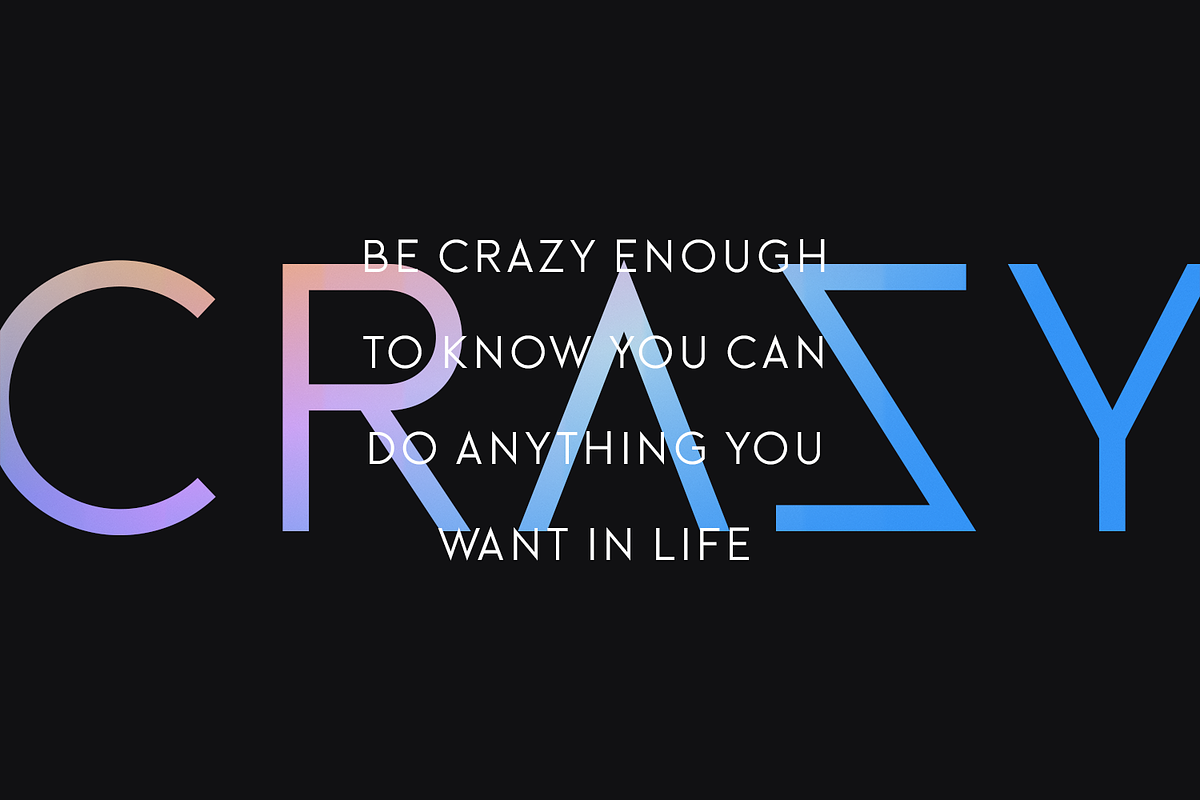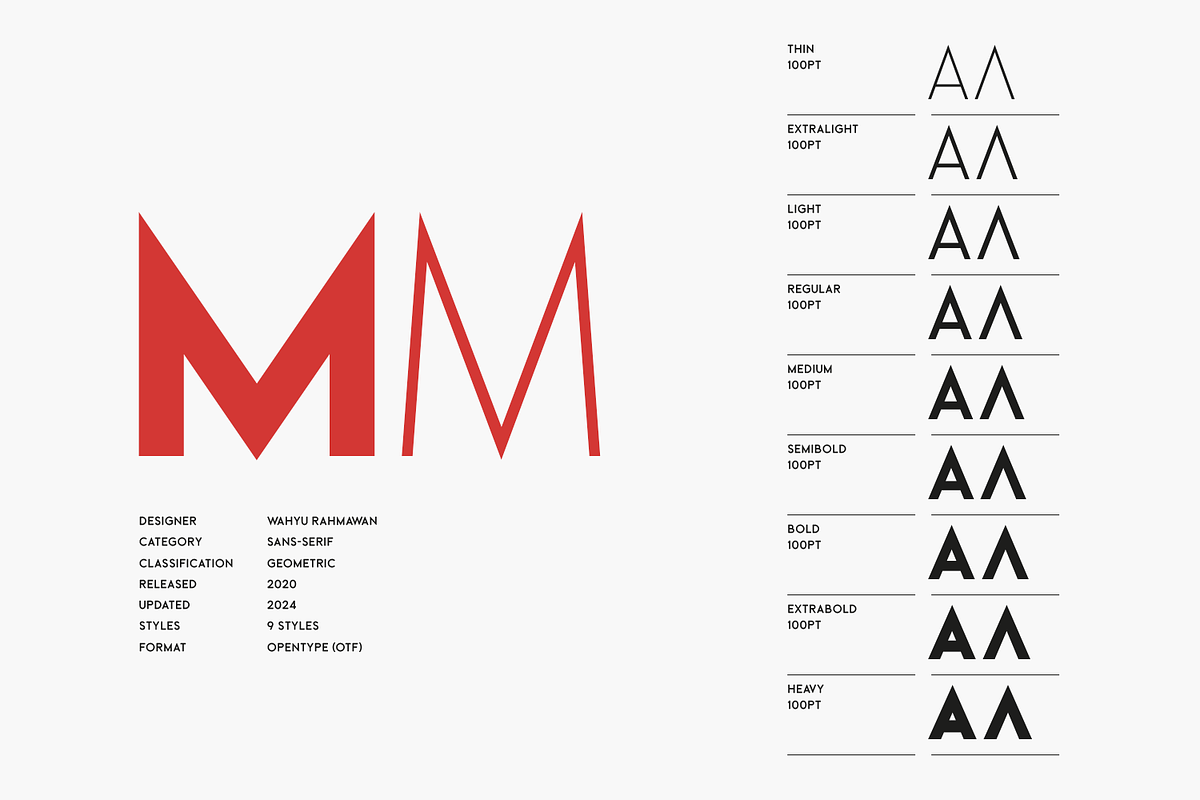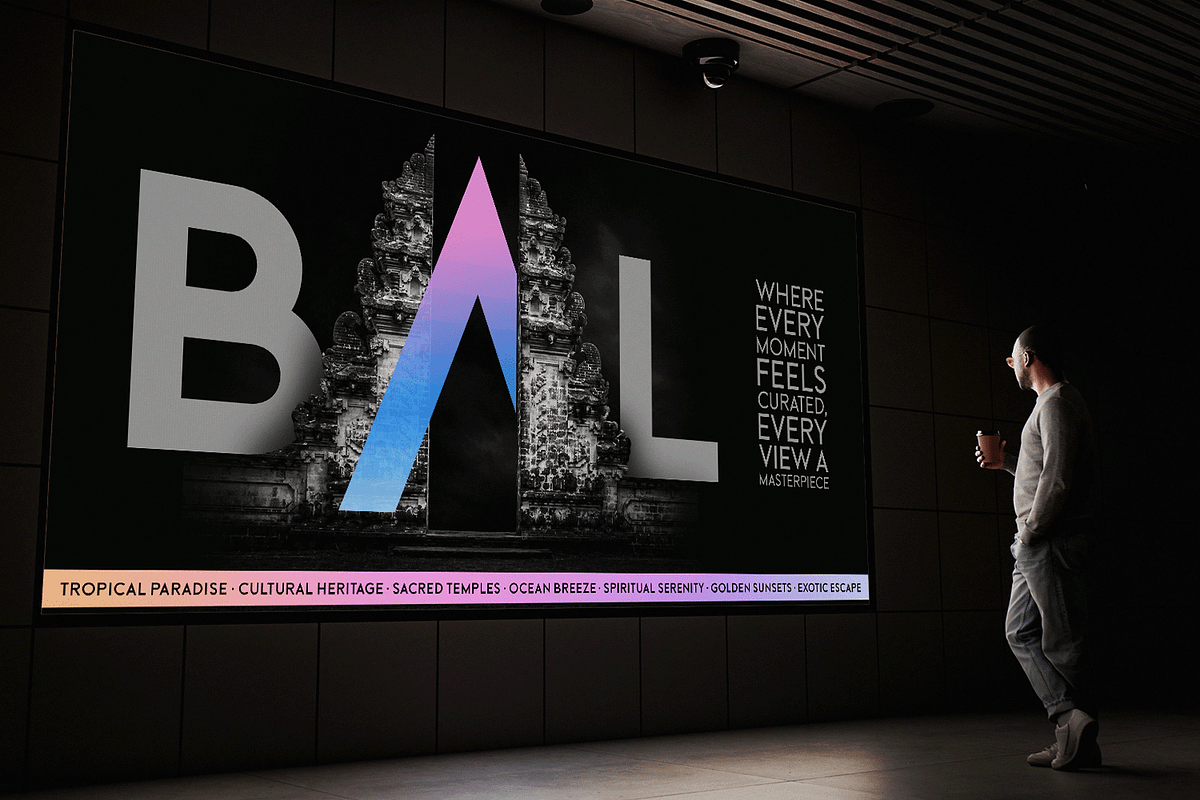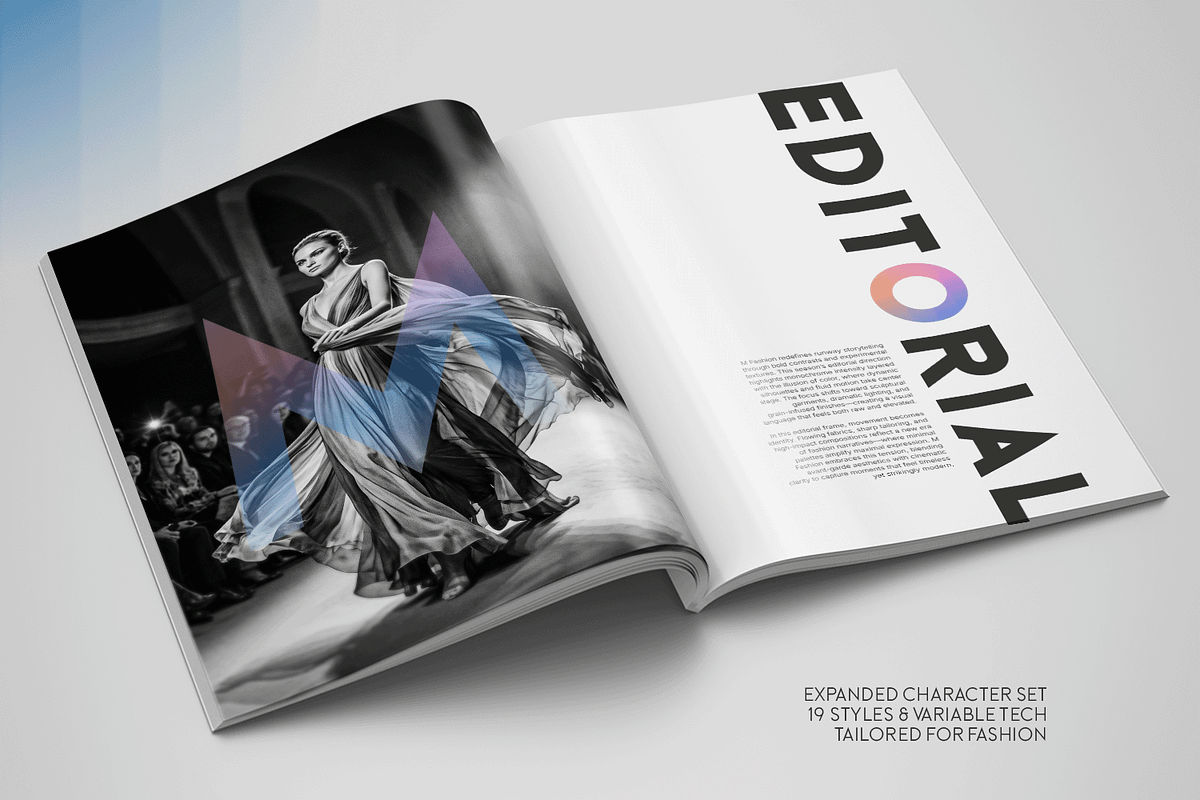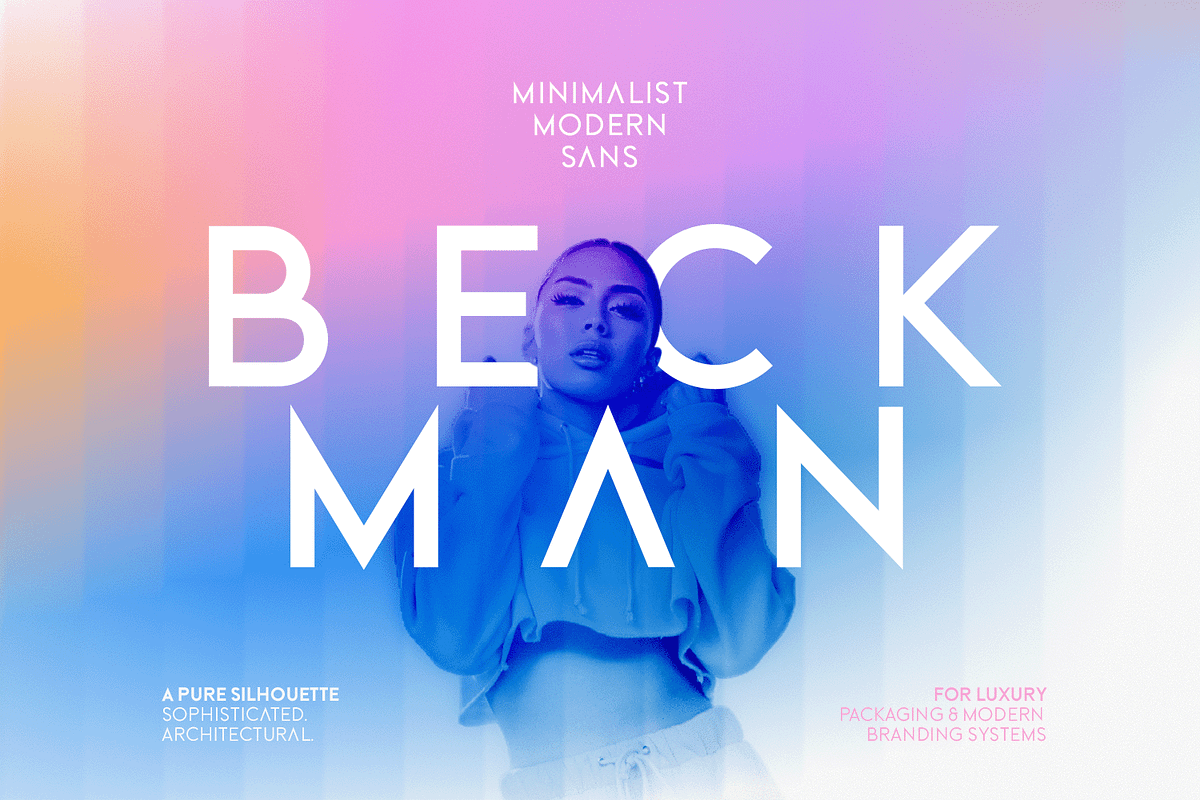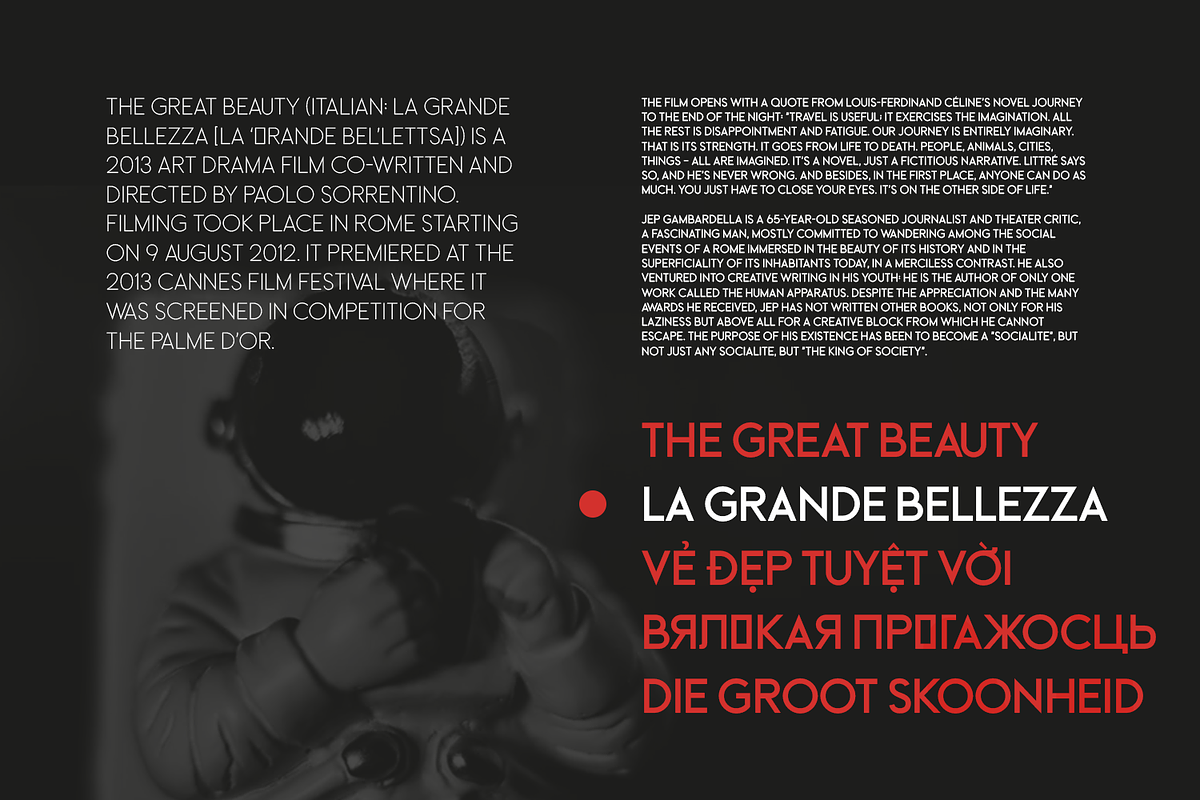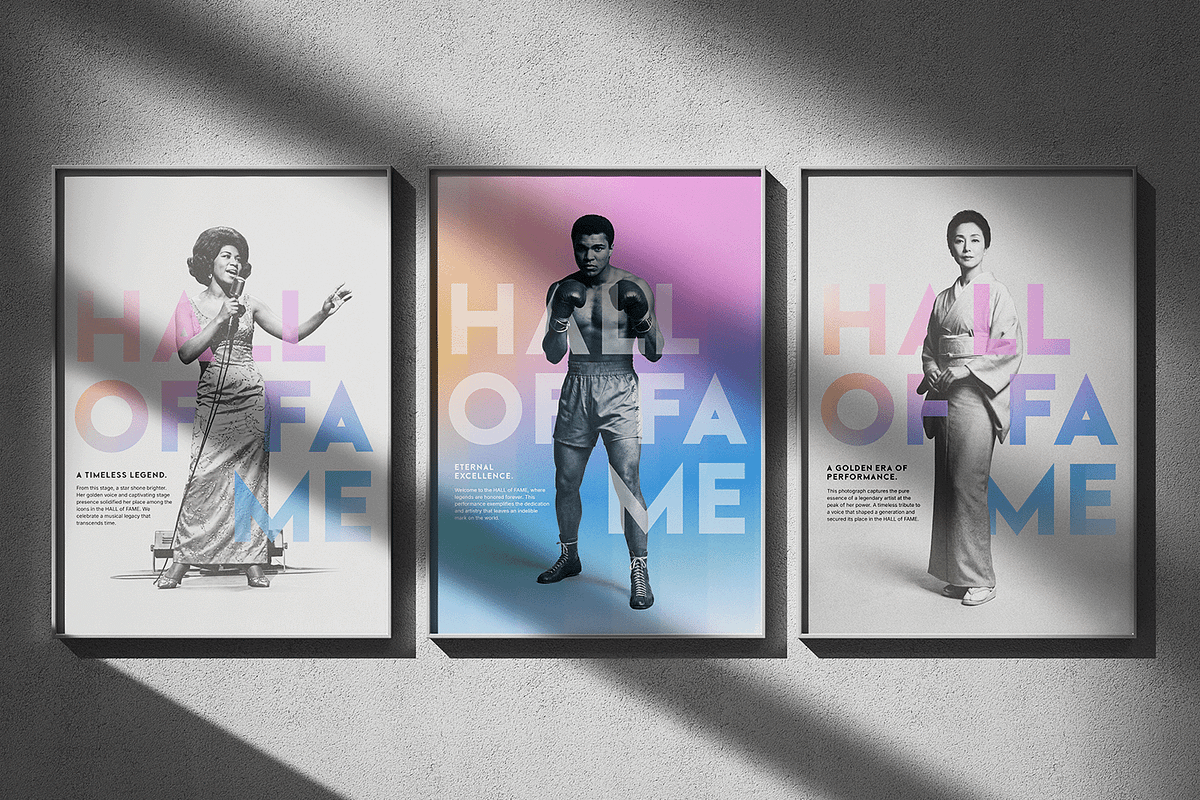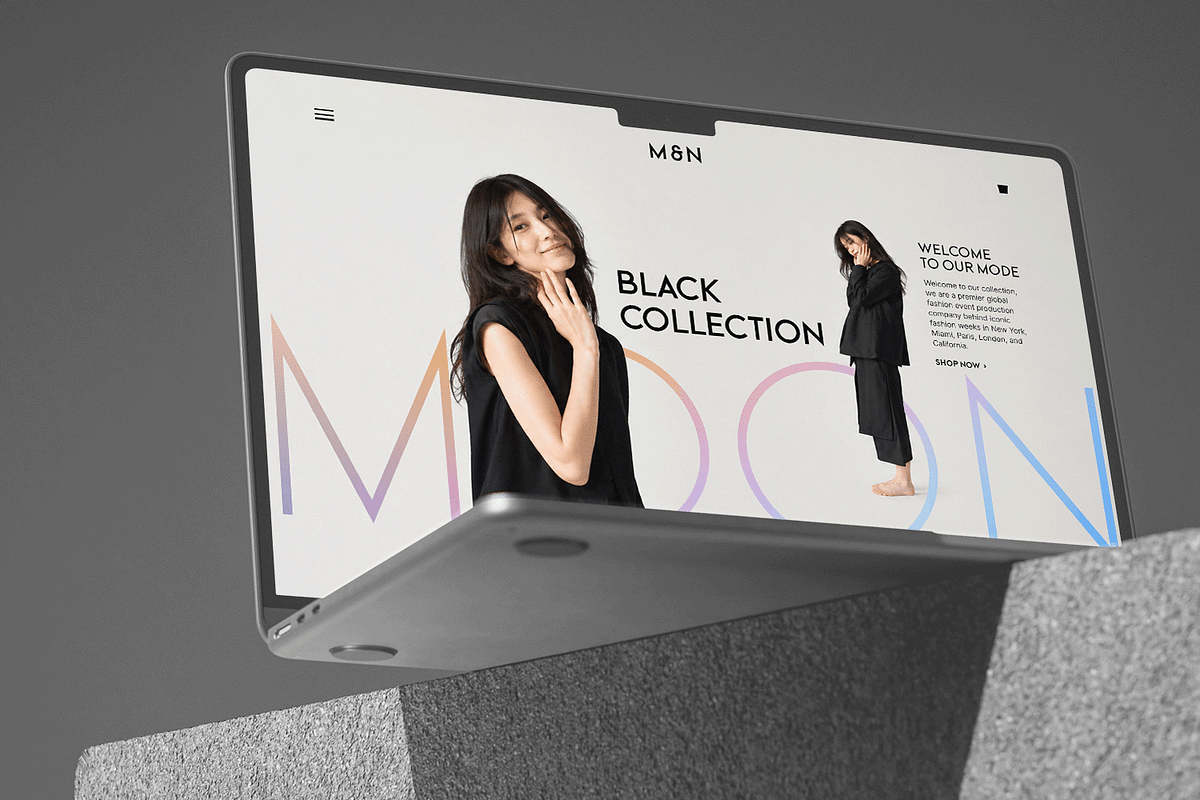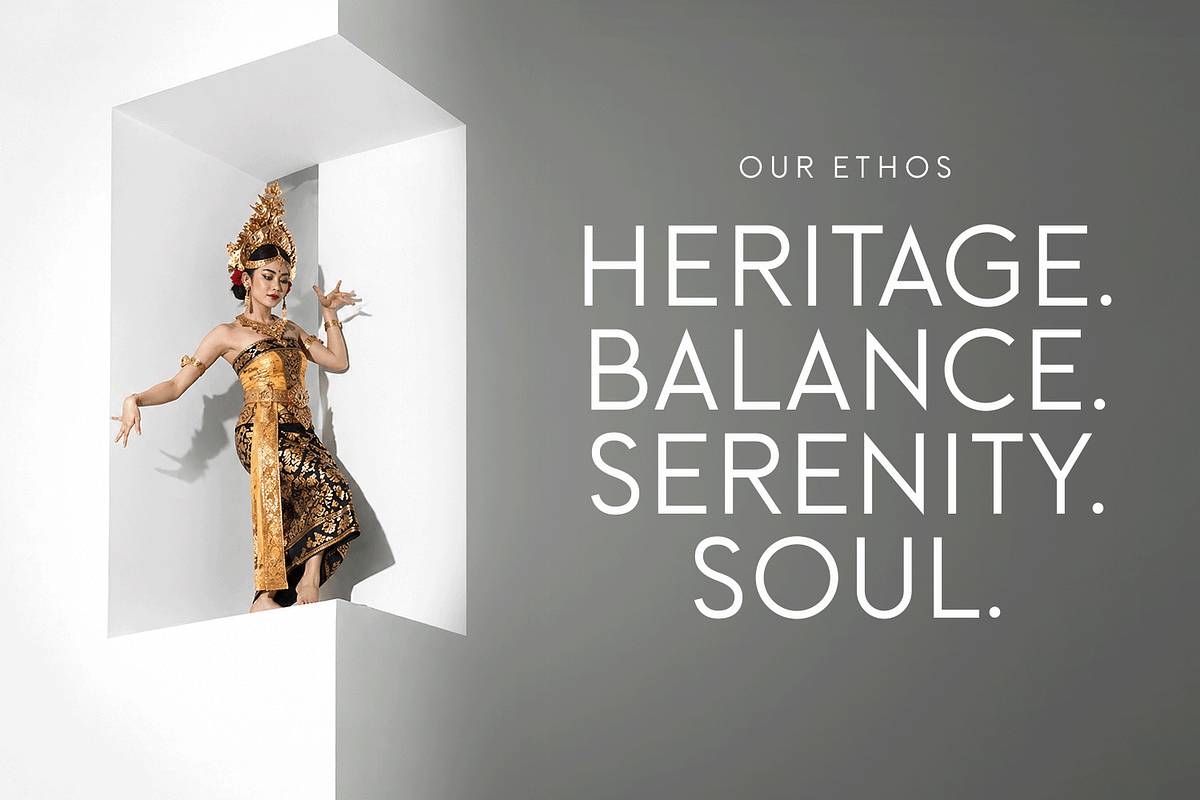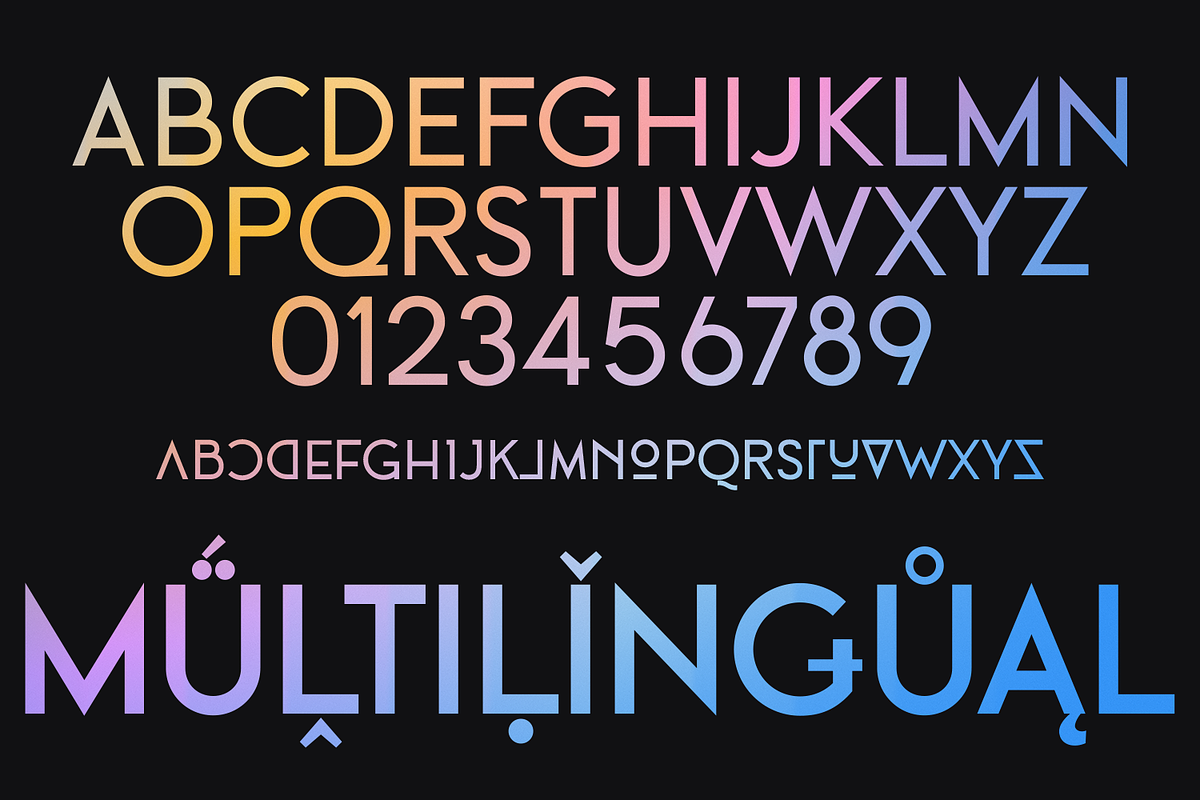
Beckman — Minimalist Modern Sans
Elevate your visual storytelling with Beckman, a sophisticated minimalist font family crafted for global fashion, beauty, and luxury lifestyle brands.
Inspired by the polished aesthetics of high-end editorial mastheads, Beckman captures contemporary elegance through its clean architectural lines and graceful presence. It is purposefully designed for creators who need a versatile yet distinctive typeface for luxury branding, boutique packaging, and high-impact headlines.
Now expanded to 9 styles, Beckman offers a comprehensive spectrum of weights—from a delicate, ethereal Thin to a commanding, bold Heavy. Each weight comes with its matching Oblique, providing the fluid motion and sharp editorial edge required for modern layouts and premium digital interfaces.
FEATURES & DESIGN POSSIBILITIES
- Aesthetic Focus: Polished minimalism, tailored for fashion branding, cosmetics, and luxury products.
- 9 Total Styles: 9 weights across Regular styles.
- Professional Character Set: 854 glyphs including stylistic alternates for custom-tailored designs.
- Best For: Logo design, magazine layouts, fashion mastheads, skincare packaging, and boutique websites.
- Global Language Support: Comprehensive multilingual support for 120+ languages.